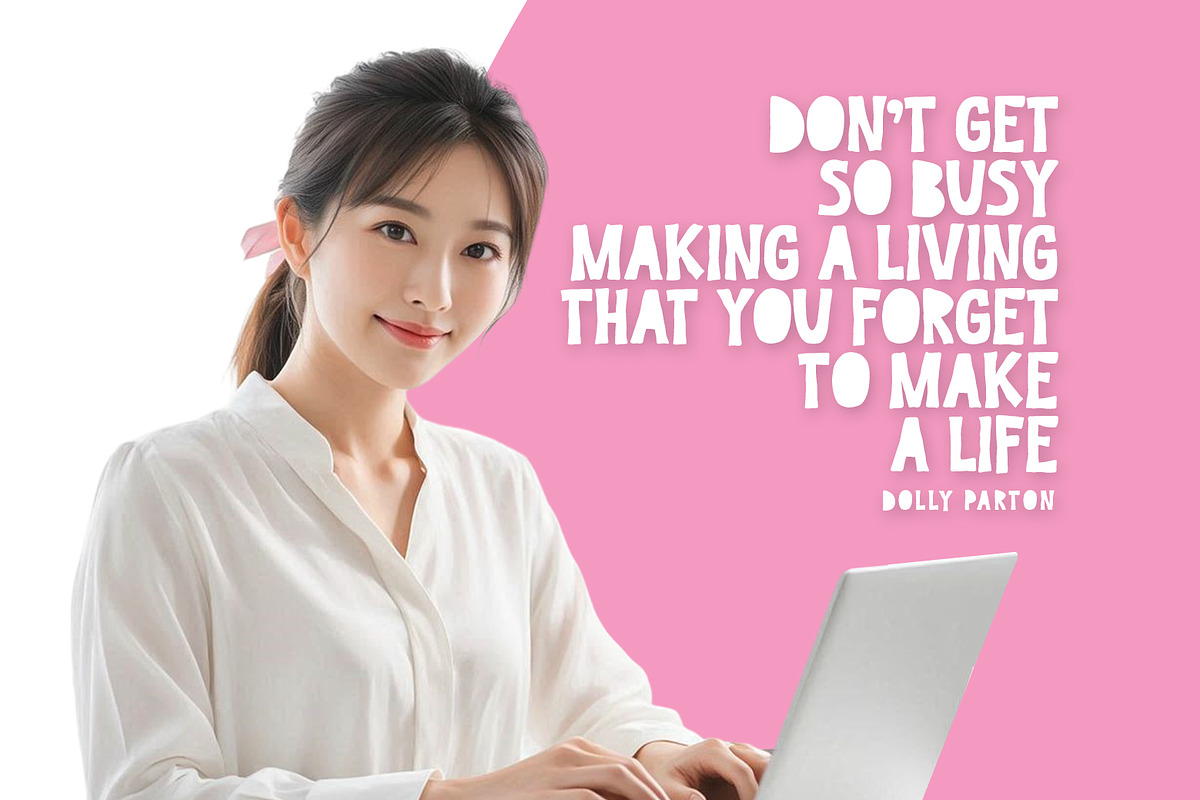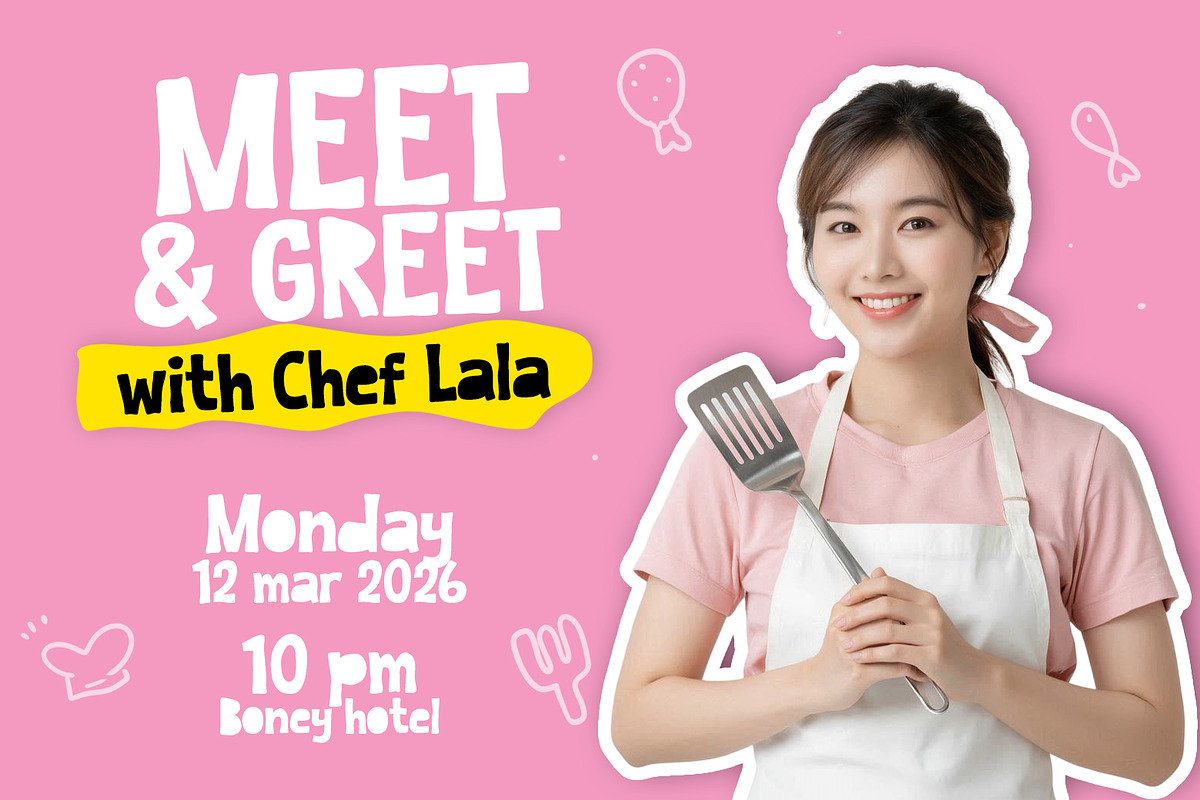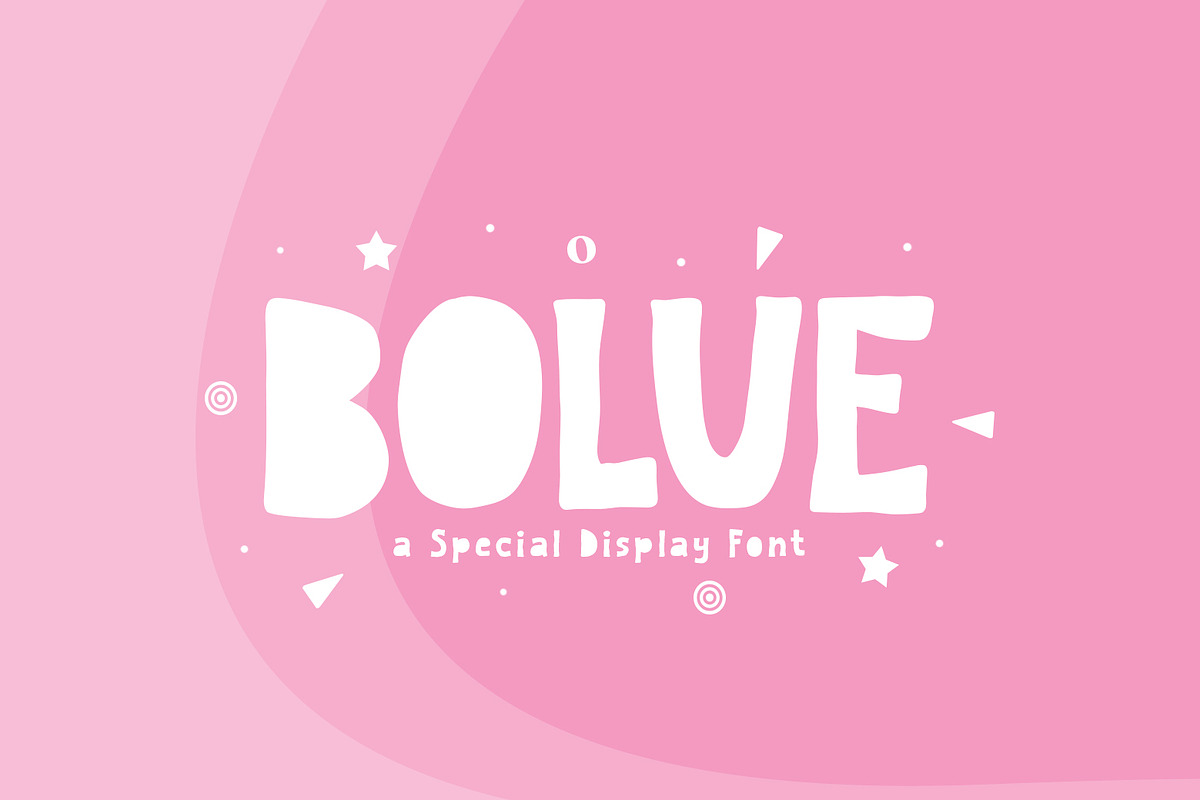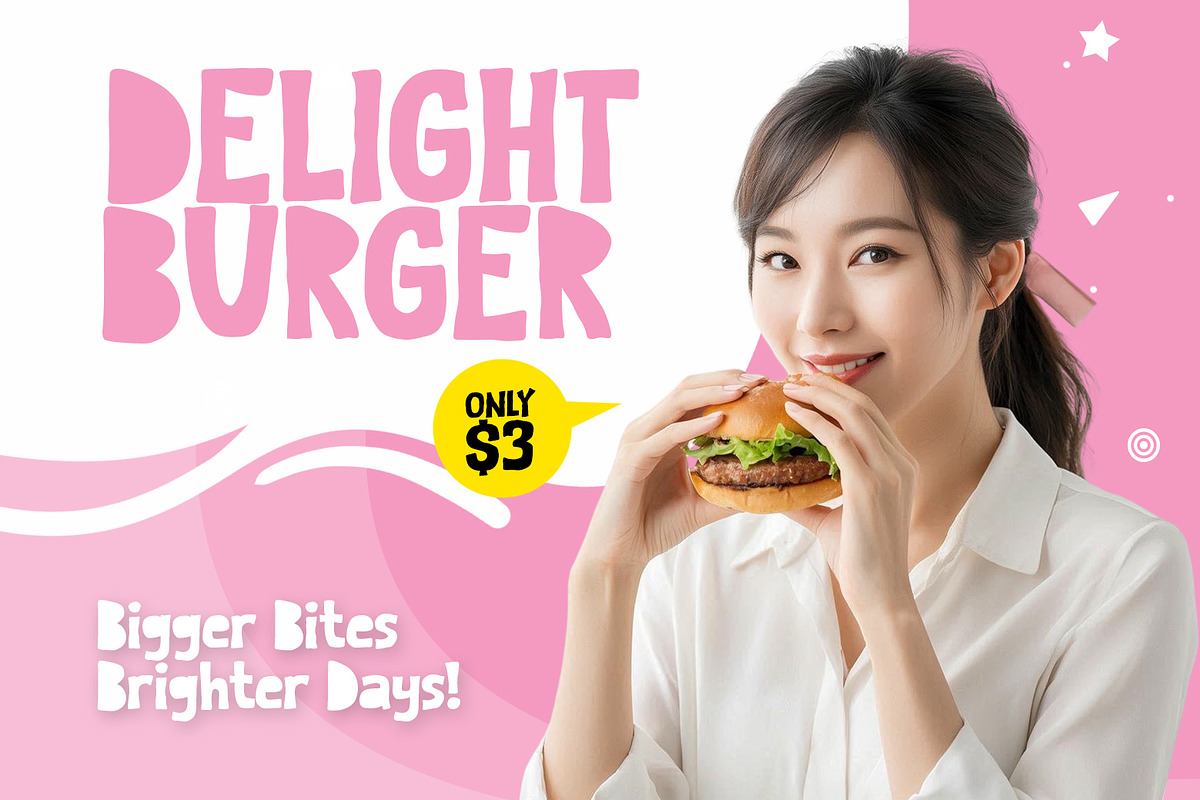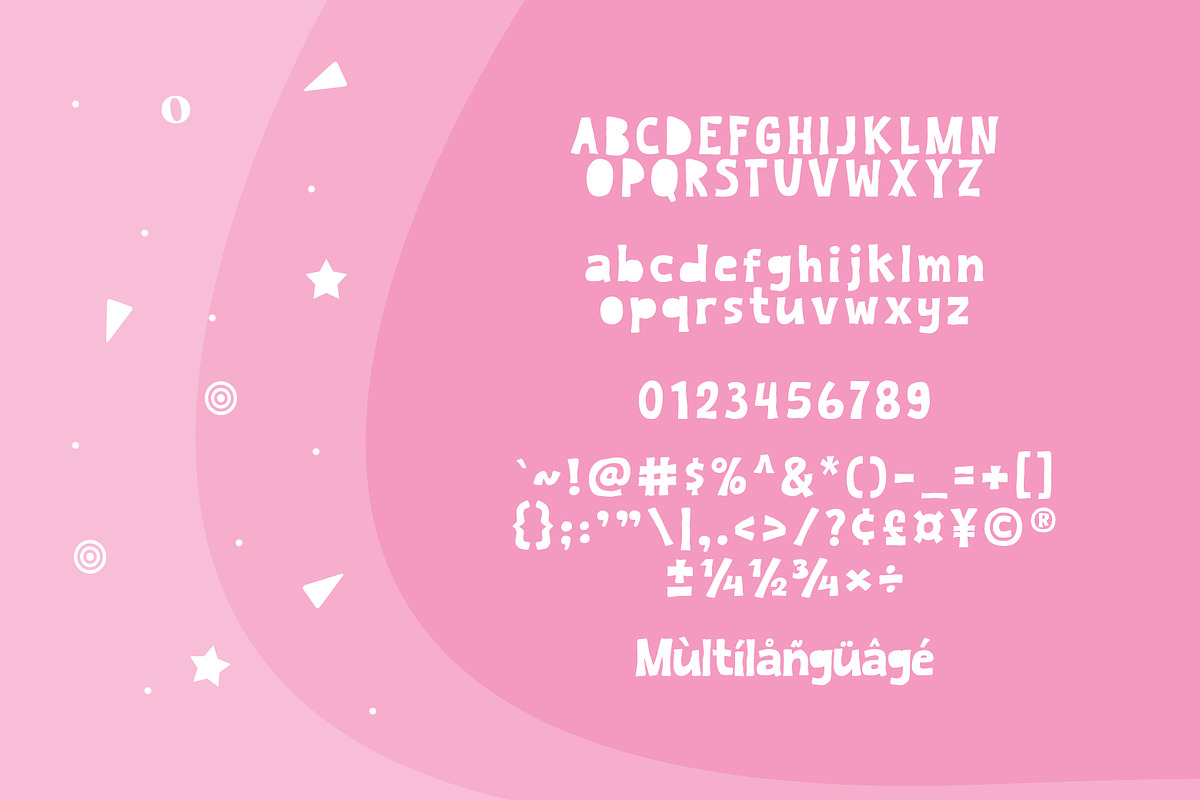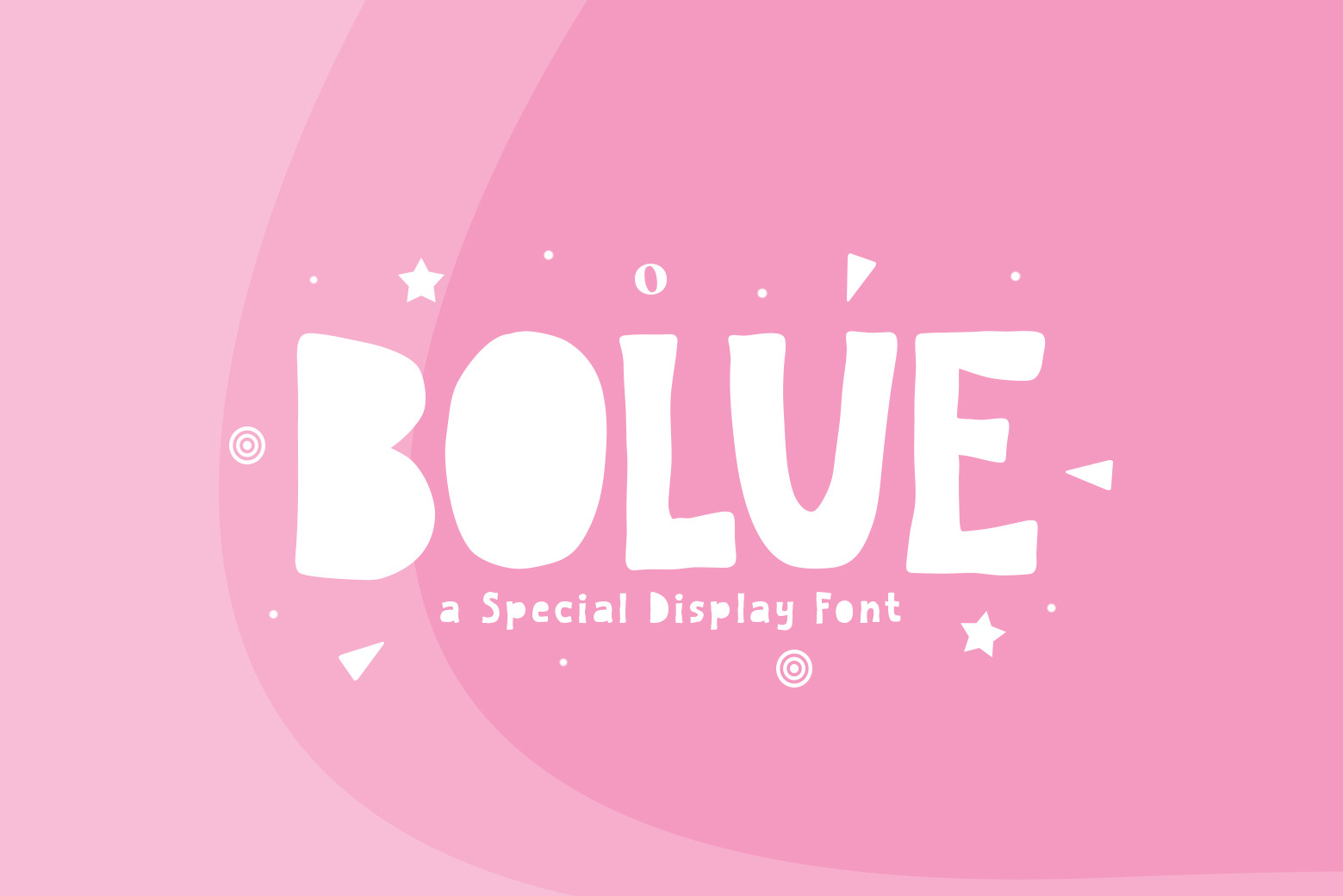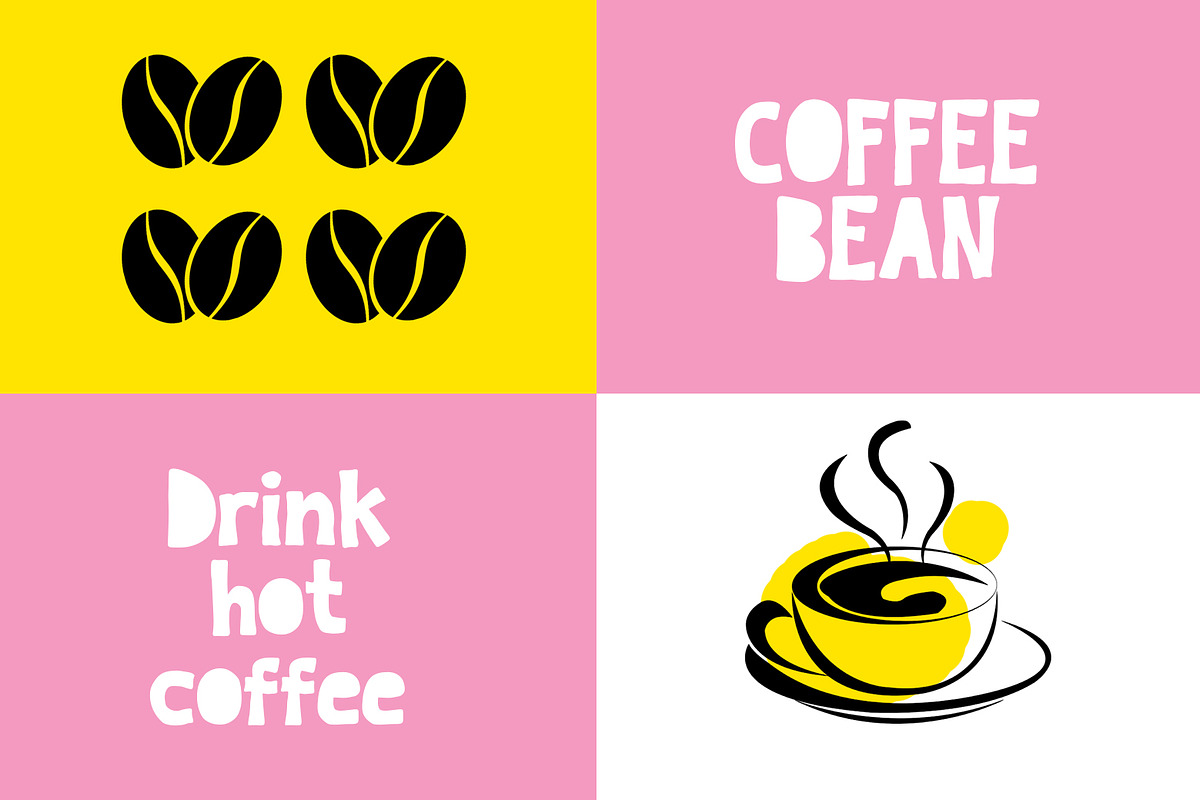
Bolue - Sweet & Playful Display Font
Introducing, Bolue font a fun display typeface with cheerful theme for your fun project. Bolue font suitable for logo, branding, greeting card, poster and any design that you create.